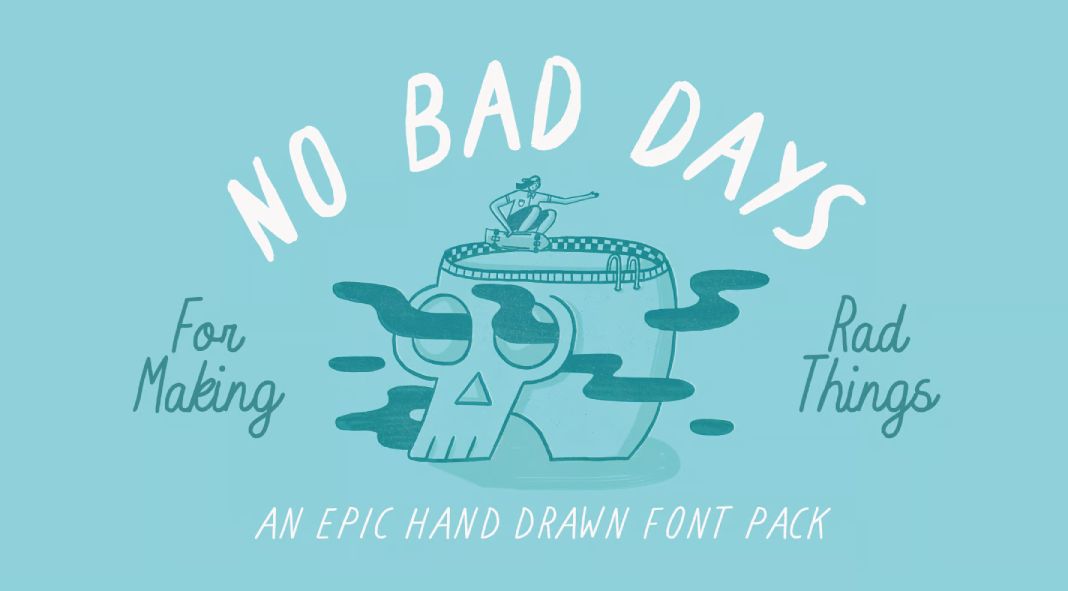
With the No Bad Days font duo, you can add unbeatable fun and style to your designs.
The No Bad Days font duo by Cardigan is a delightful and refreshing addition to the world of typography. If you’re in need of a unique, fun, and handwritten touch to elevate your designs, this pack will undoubtedly surpass your expectations. Consisting of two eye-catching fonts, it effortlessly brings good vibes and an edgy flair to any project.
At the core of this dynamic duo is a bold, brush font that commands attention with its striking strokes and expressive lines. Its assertive nature makes it ideal for headlines, titles, or any element that demands prominence. Whether you’re designing a poster, flyer, or social media graphics, this font will infuse your work with an air of energy and enthusiasm that resonates with the audience.
Complementing the bold brush font is the supporting thin, handwritten script font. This font adds a touch of elegance and softness, creating a perfect harmony when paired with its bolder counterpart. Its subtle curves and natural flow mimic the charm of handwritten text, offering a level of authenticity that is hard to resist. When used for subheadings, captions, or body text, it effortlessly enhances readability while adding a personal touch to your design.
What truly sets the No Bad Days font duo apart is its versatility. With such distinct personalities, the two typefaces complement each other seamlessly, allowing you to mix and match according to your creative vision. The combination possibilities are endless, and each choice results in a uniquely captivating outcome.
One of the duo’s remarkable features is how it lends itself well to different design styles. Whether you’re aiming for a laid-back, bohemian vibe or a vibrant and energetic look, No Bad Days has your back. It exudes a sense of freedom and playfulness, making it an excellent choice for projects where you want to inject personality and character.
Creating a logo with the No Bad Days font duo is an absolute joy. The hand-drawn feel of the script font brings authenticity to your brand identity, while the bold brush font reinforces your message with a punch. Together, they form a harmonious logo that is memorable and captivating.
Moreover, for those seeking an organic font that leaps off the page, the brush font delivers in spades. Its distinct style is perfect for designs that need that extra touch of creativity and excitement.
In conclusion, the No Bad Days font duo by Cardigan is a must-have in any designer’s toolkit. It’s a masterful pairing of two fonts that truly complement each other, giving your projects a unique and fun-filled character. Whether you’re crafting a logo, designing a poster, or working on any other creative endeavor, this font duo will effortlessly add a touch of magic, guaranteeing that there will be no bad days for your designs.